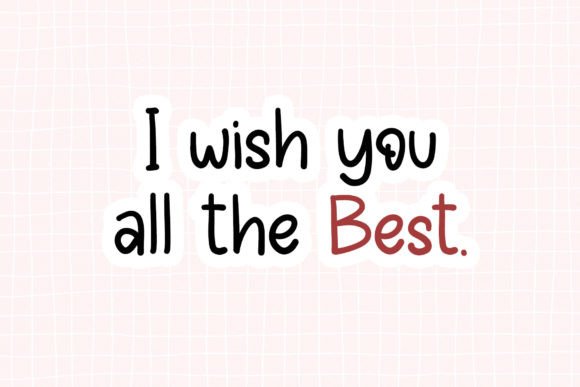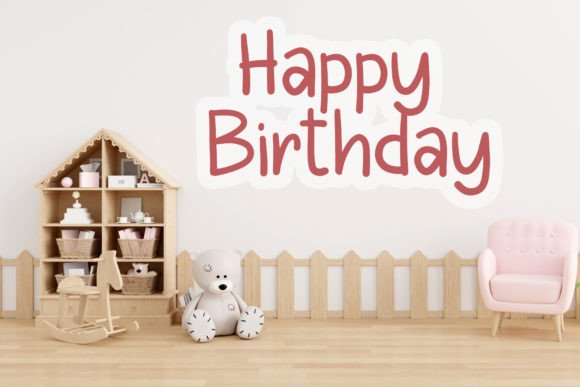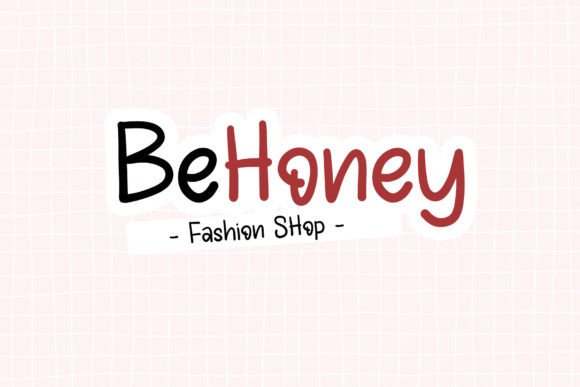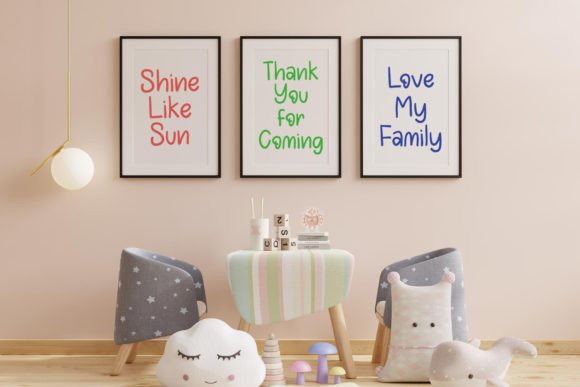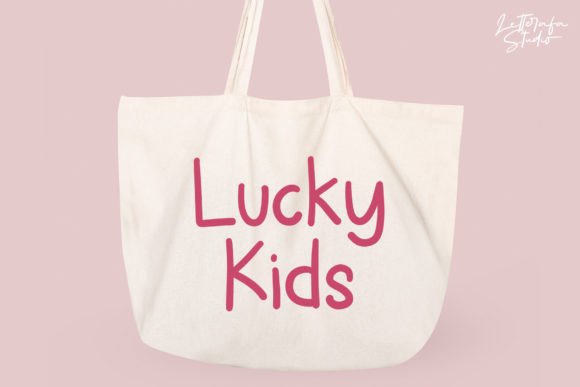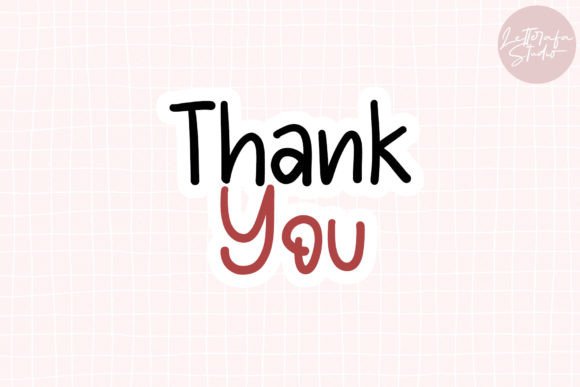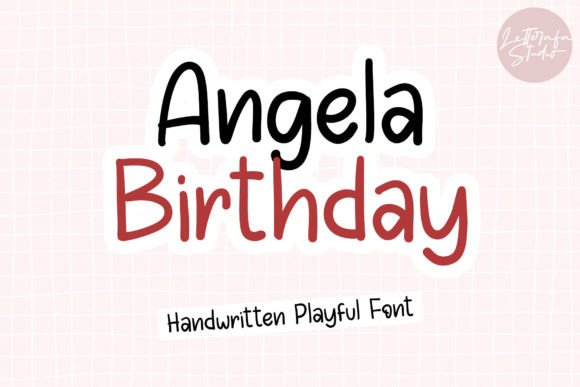
Introducing Angela Birthday Font: The Playful and Cute Handwritten Font for All Occasions
Are you tired of using the same old fonts for your designs and crafts? Look no further! Angela Birthday Font is here to add a touch of playfulness and cuteness to your projects. This handwritten font is perfect for crafters, digital designers, and anyone looking to add a personal touch to their work. Whether you’re creating greeting cards, presentations, or digital designs, Angela Birthday Font is sure to become your new favorite go-to font.
What Makes Angela Birthday Font So Special?
Angela Birthday Font is a unique and charming handwritten font that is sure to capture the hearts of designers and crafters alike. Its playful and cute style makes it perfect for a variety of projects, from birthday cards and invitations to digital designs and presentations. The font’s friendly and approachable feel makes it ideal for creating a personal connection with your audience.
Uses for Angela Birthday Font
Angela Birthday Font is a versatile font that can be used for a wide range of projects, including:
- Crafts: Use Angela Birthday Font to add a personal touch to your scrapbooking, card making, and other paper crafts.
- Digital Design: Add a playful and cute touch to your digital designs, such as social media graphics, blog posts, and website headers.
- Presentations: Use Angela Birthday Font to add a friendly and approachable feel to your presentations and slideshows.
- Greeting Cards: Create personalized and unique greeting cards for birthdays, holidays, and other special occasions.
Why Designers and Crafters Love Angela Birthday Font
Angela Birthday Font has quickly become a favorite among designers and crafters due to its unique and charming style. Here are just a few reasons why:
- Easy to Read: Angela Birthday Font is clear and easy to read, making it perfect for digital designs and crafts.
- Playful and Cute: The font’s playful and cute style adds a touch of whimsy and fun to any project.
- Versatile: Angela Birthday Font can be used for a wide range of projects, from digital designs to paper crafts.
- Unique: The font’s unique style sets it apart from other handwritten fonts, making it perfect for designers and crafters looking to add a personal touch to their work.
Tips for Using Angela Birthday Font
Here are a few tips for getting the most out of Angela Birthday Font:
- Pair with Other Fonts: Angela Birthday Font pairs well with other fonts, such as bold and sans-serif fonts, to create a unique and visually appealing design.
- Experiment with Colors: The font’s playful and cute style looks great in a variety of colors, from bright and bold to soft and pastel.
- Use for Headings and Titles: Angela Birthday Font is perfect for headings and titles, adding a touch of personality and whimsy to your designs.
| Font Name | Angela Birthday Font |
| Author | Letterafa Studio |
Angela Birthday Font is a playful and cute handwritten font that is sure to become your new favorite go-to font. Its unique and charming style makes it perfect for a wide range of projects, from crafts and digital designs to presentations and greeting cards. With its easy-to-read style, versatile uses, and unique charm, Angela Birthday Font is a must-have for designers and crafters looking to add a personal touch to their work.